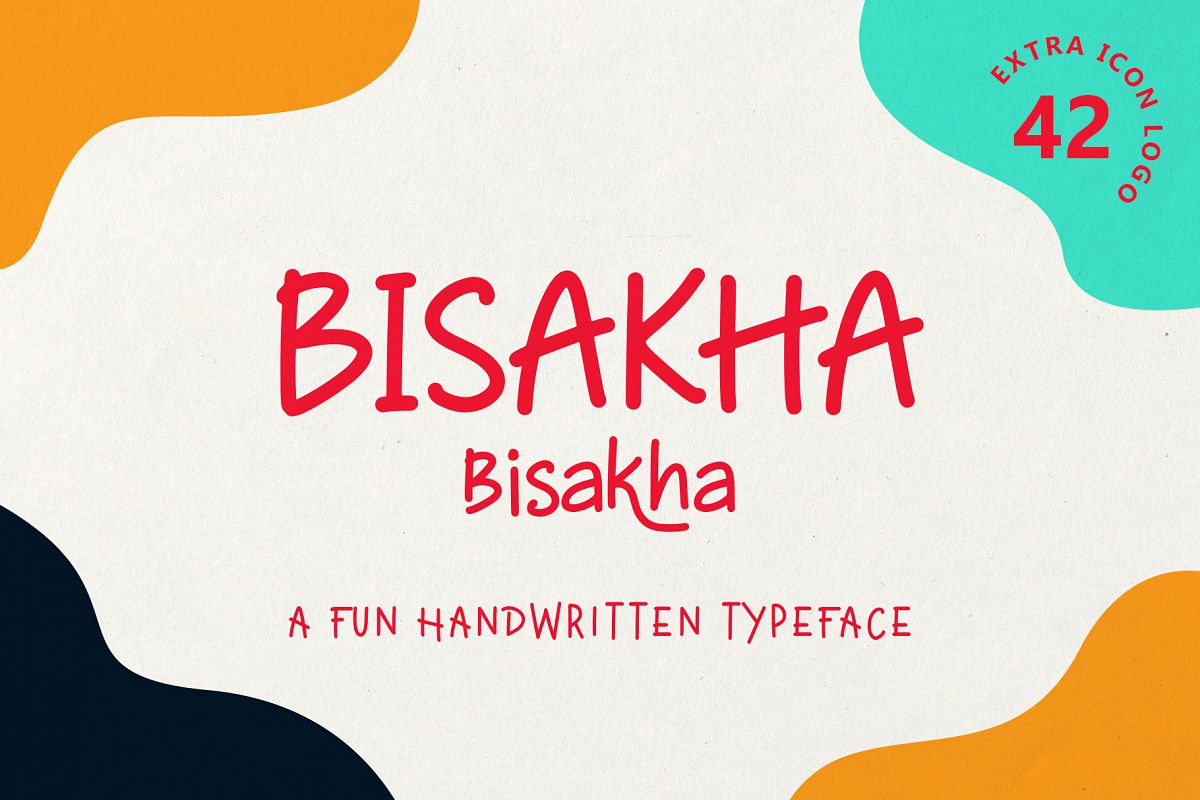
Bisakha - Fun Handwritten Typeface
Bisakha Extras
Bisakha
Introducing Bisakha, simple handwriting style. This font offers a unique look and is very attached to your design in a classic or modern style.
Bisakha is the right choice of fonts for your projects in the form of logos & branding, print media, social media posts, wedding invitations, watermarks or works that require hand styles with a distinctive style.